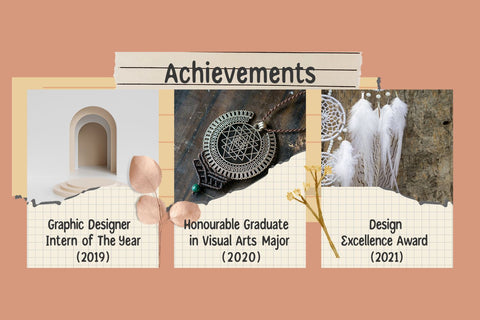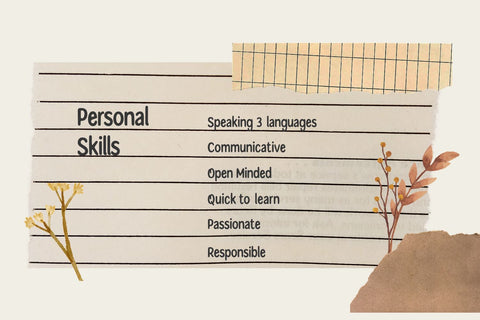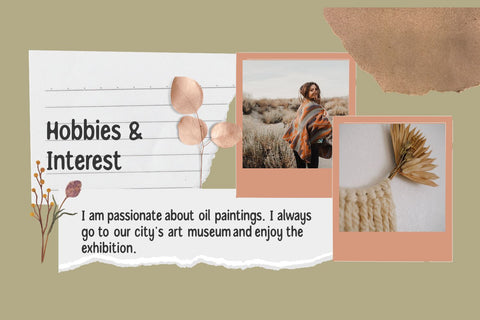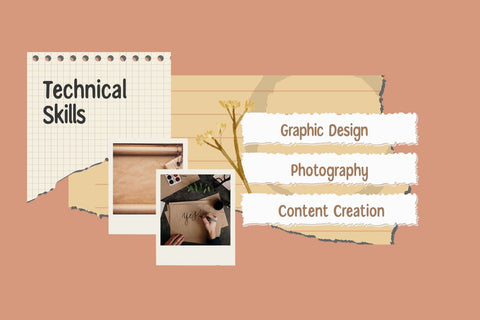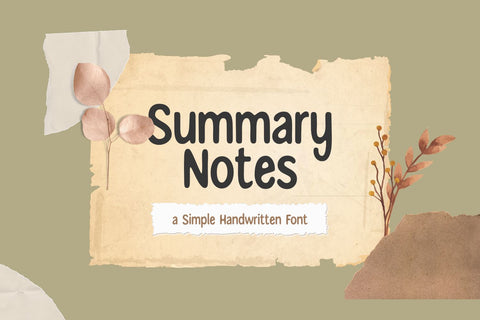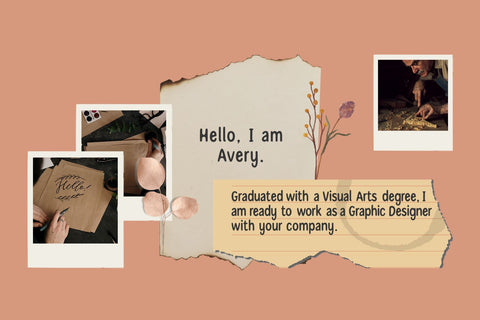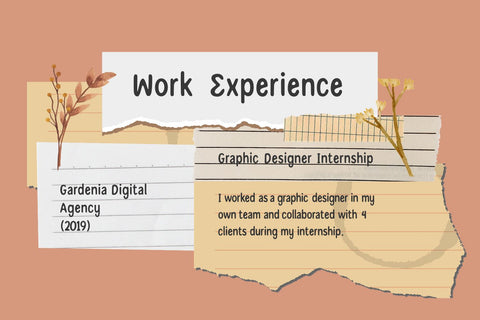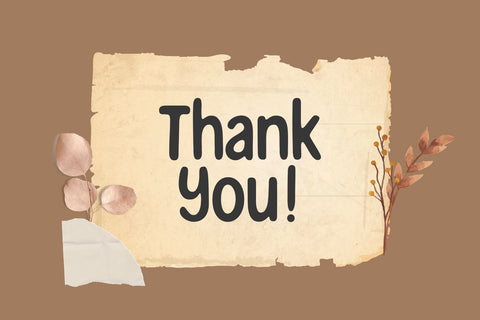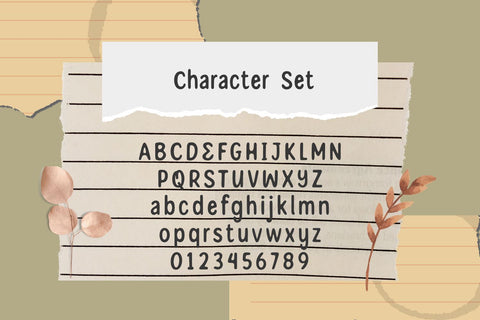
Summary Notes - a Simple Handwritten Font
Summary Notes is a simple and neat handwritten font ready to impress your audience and make your branding shine. Make your projects stand out with this humble and wonderful font wherever you use it. Perfect for headings, logos, ads, printed quotes, packaging, and even your website or social media branding.